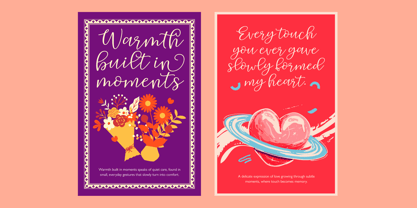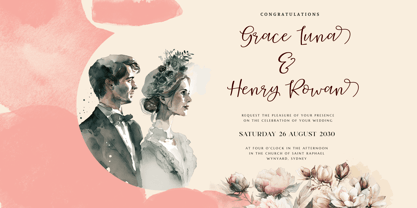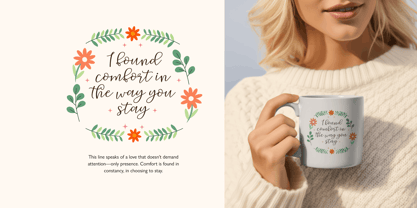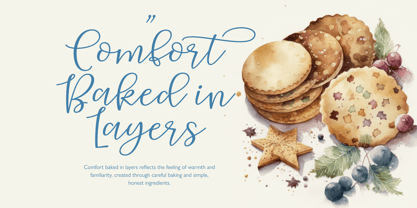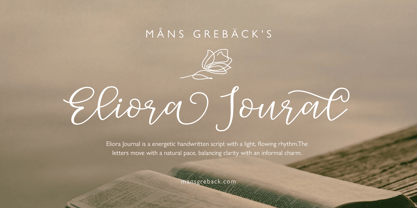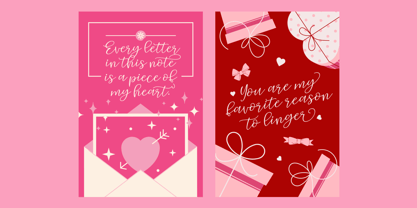
Eliora Journal
by Mans Greback
The Eliora Journal Font Family was designed by Måns Grebäck and published by Mans Greback. Eliora Journal contains 4 styles and family package options. More about this family
Eliora Journal is a energetic handwritten script with a light, flowing rhythm. The letters move with a natural pace, balancing clarity with an informal charm. Strokes are smooth and slightly varied, giving the impression of handwriting done with vigor, as if written in a personal notebook. The uppercase characters carry gentle loops and open forms, while the lowercase keeps things friendly and readable. The font is built with advanced functionality and guaranteed top-notch quality, containing stylistic and contextual alternates, ligatures and more automatic and manual features; all to give you full control and customizability. It has extensive lingual support, covering all Latin-based languages, from North Europa to South Africa, from America to South-East Asia. It contains all characters and symbols you'll ever need, including all punctuation and numbers. Designed to feel human and unforced, Eliora Journal reflects a handwritten style that values ease over perfection. It carries a quiet personality, letting the text speak naturally rather than drawing attention to itself.
Designers: Måns Grebäck
Foundry: Mans Greback